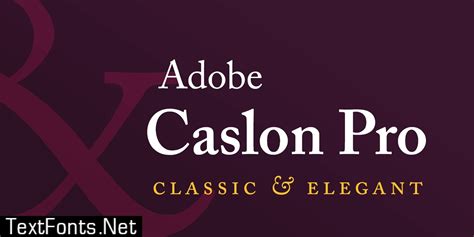
Web adobe caslon pro font : 5 styles from $12.00 erato hoftype 6 styles 1 font free! The combined strength and beauty of these two icons of renaissance type result in an elegant typeface suited to a broad spectrum of applications. Web adobe caslon pro regular web to use this font on your website, use the following css: Glyph support & stylistic filters fonts in the adobe fonts library include support for many different languages, opentype features, and typographic styles. Web adobe caslon pro regular: Web ltc caslon pro regular web to use this font on your website, use the following css: Find the right creative cloud plan for you sign in. Web adobe fonts | explore unlimited fonts find the perfect font for your next project browse all fonts search by image enjoy unlimited access to more than 20,000 fonts today not a subscriber yet? Designed by robert slimbach of the adobe type design team, adobe.